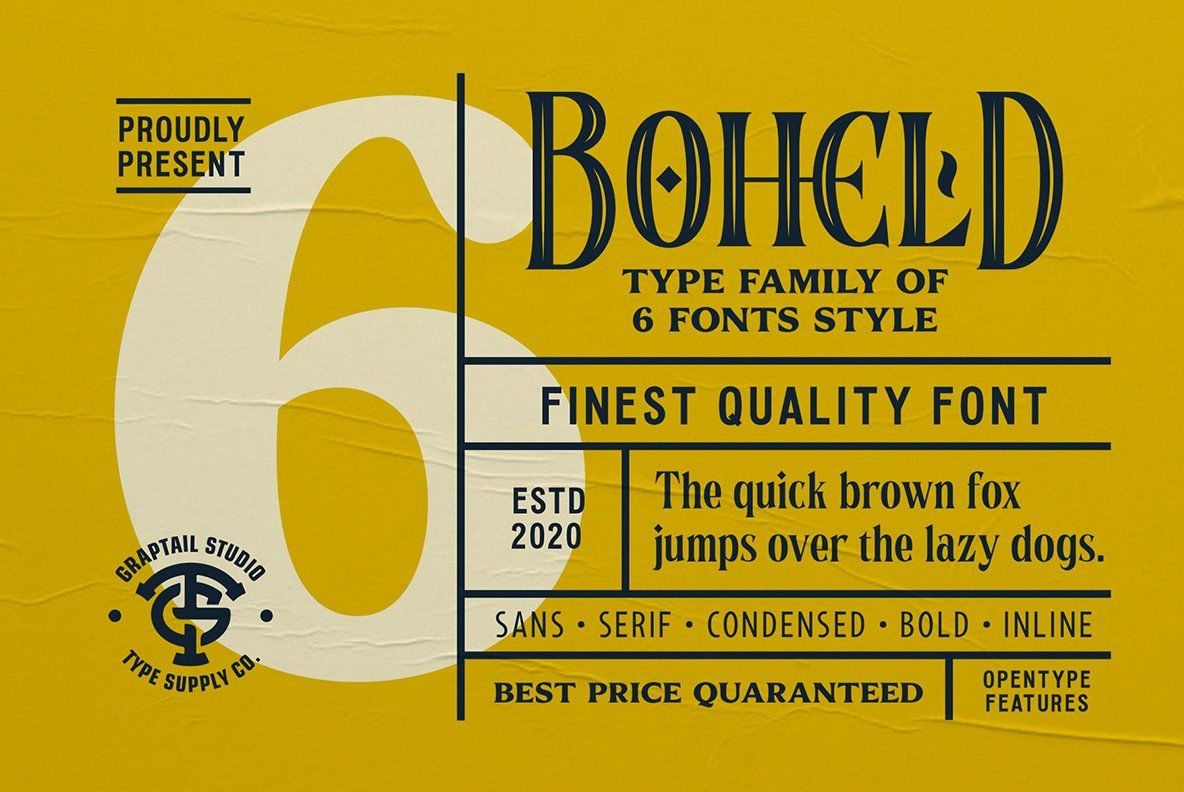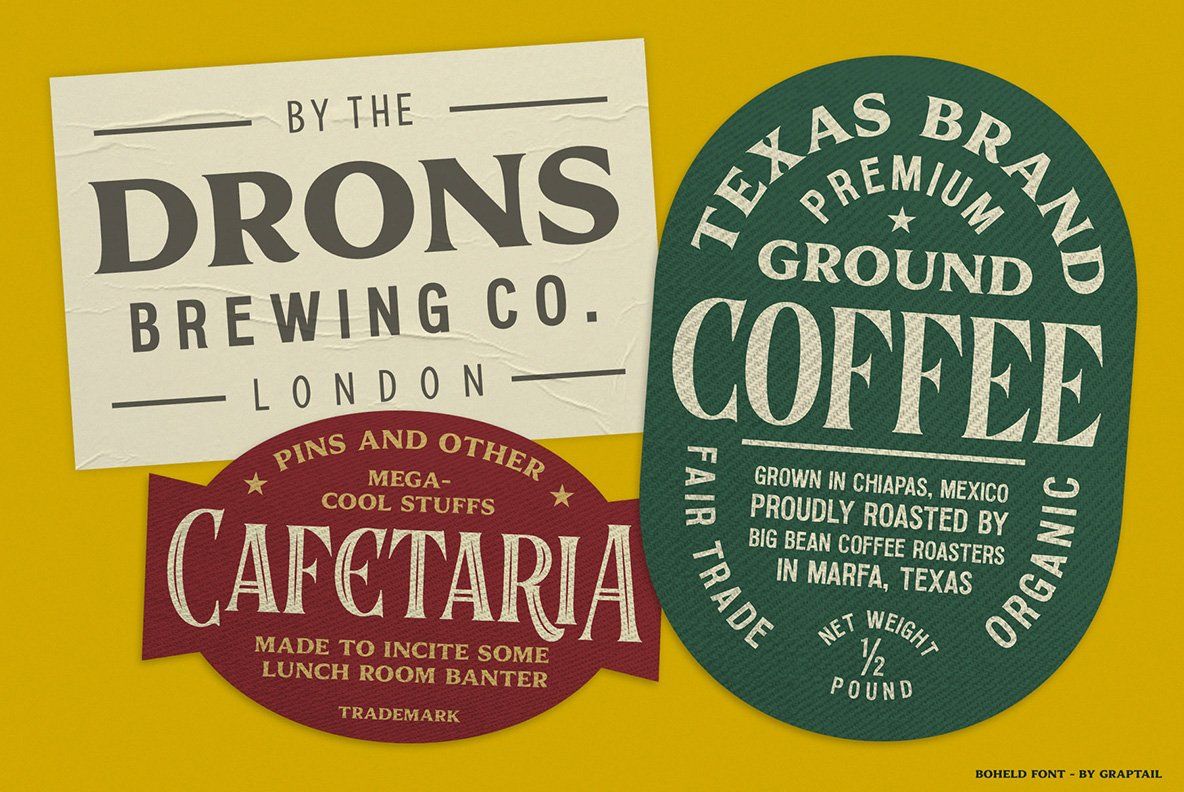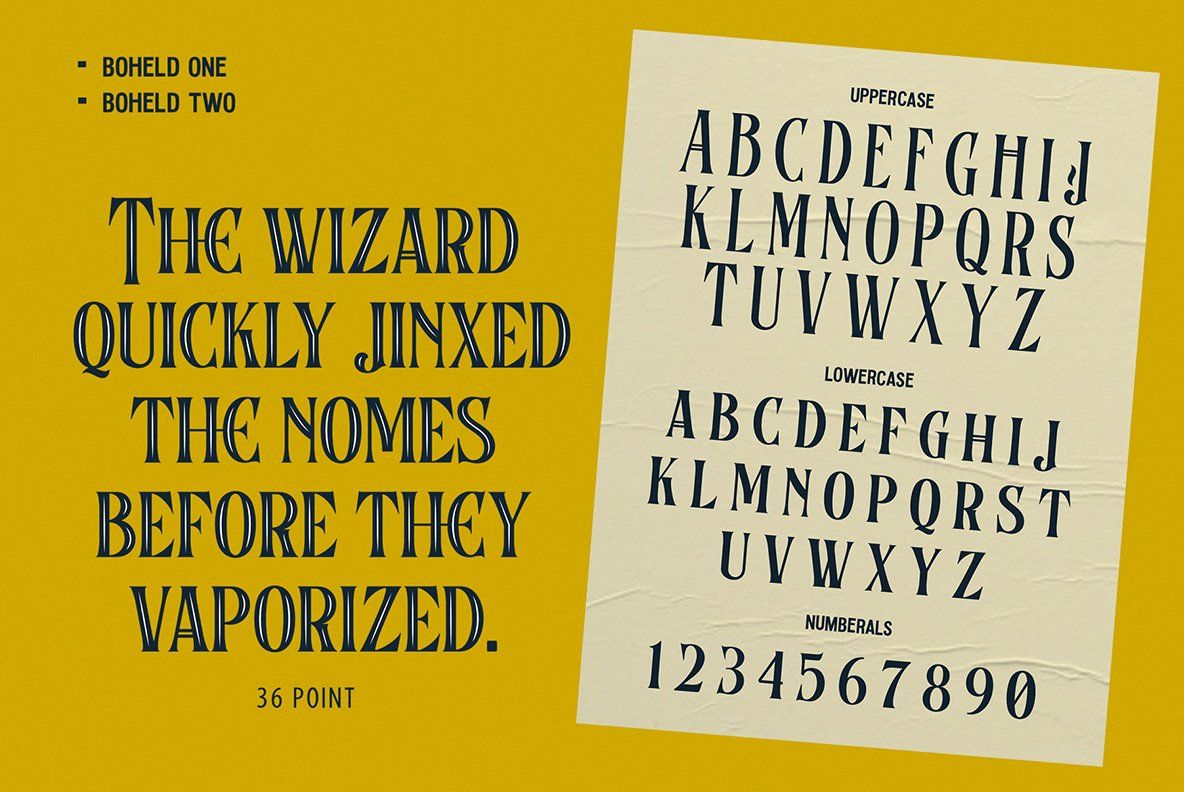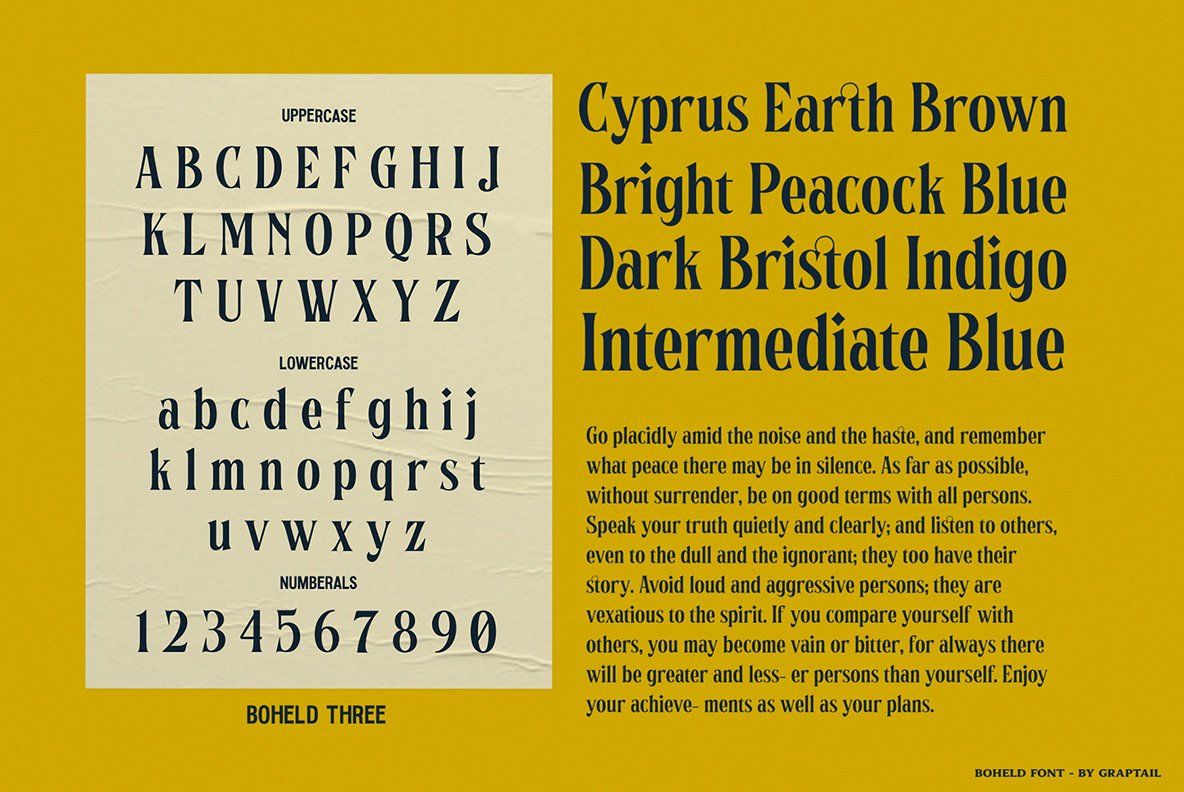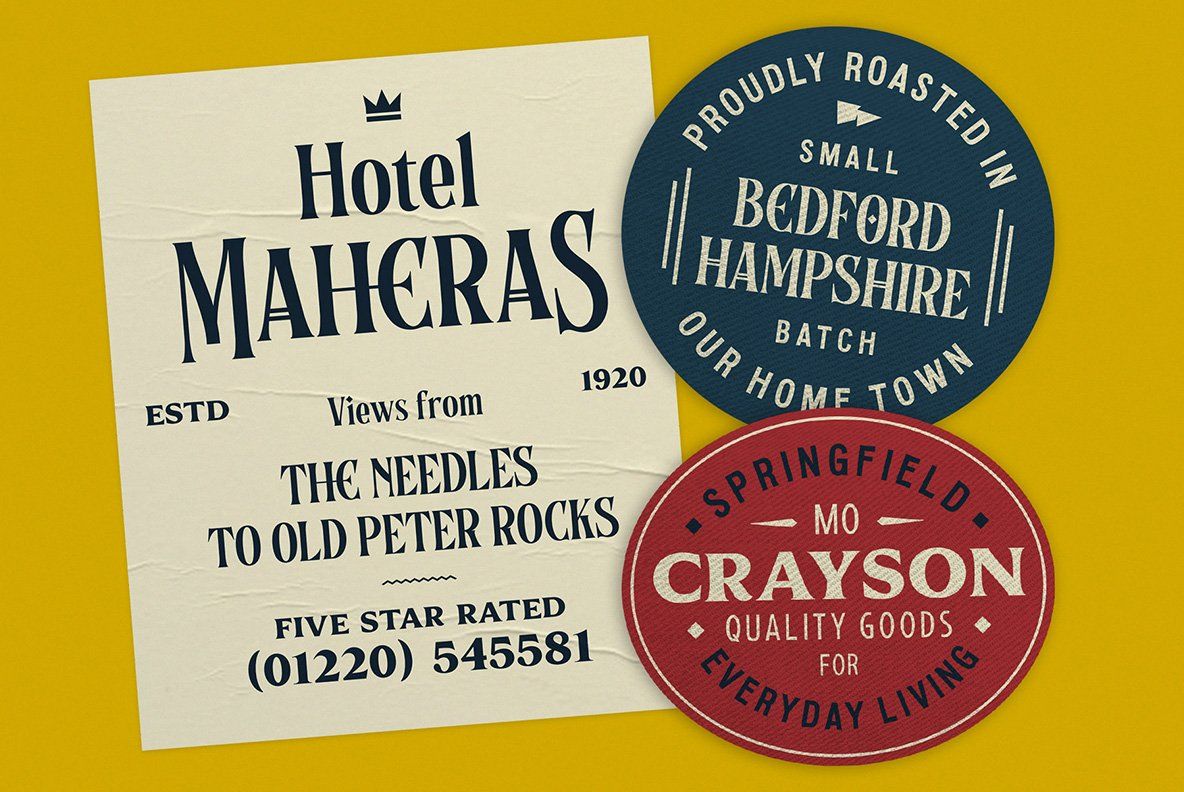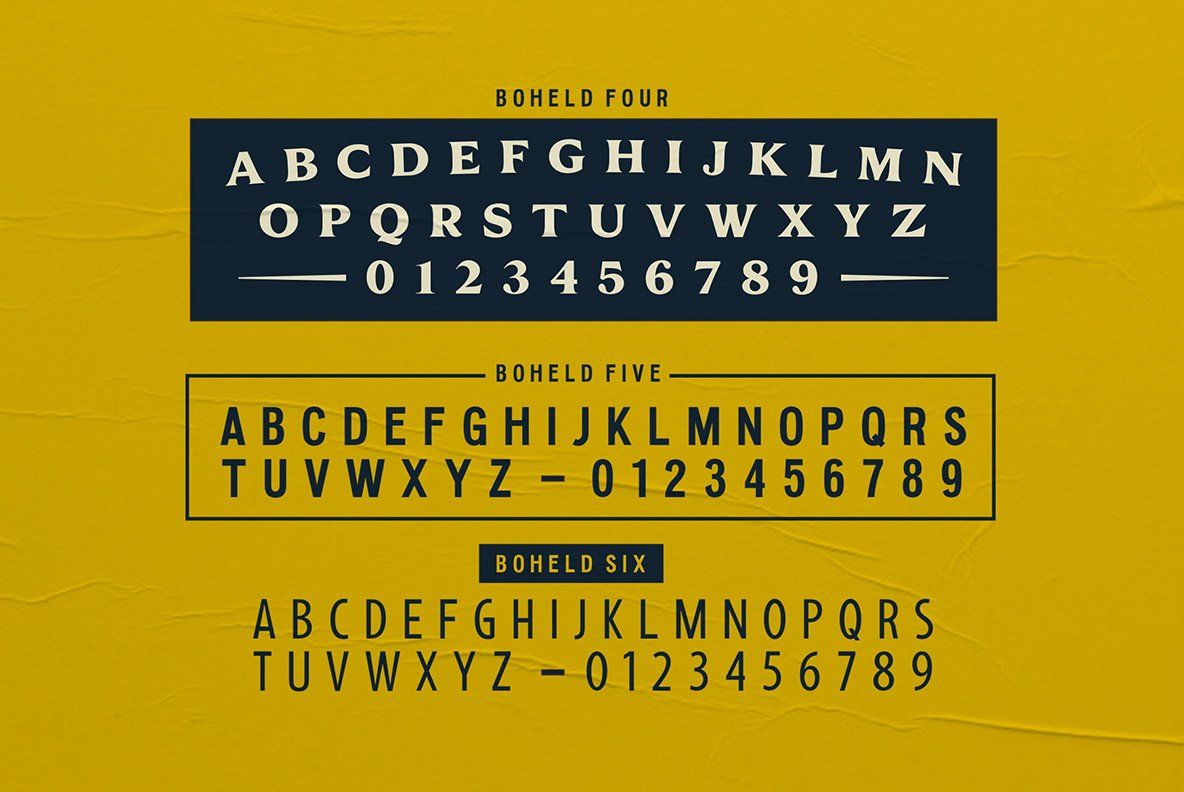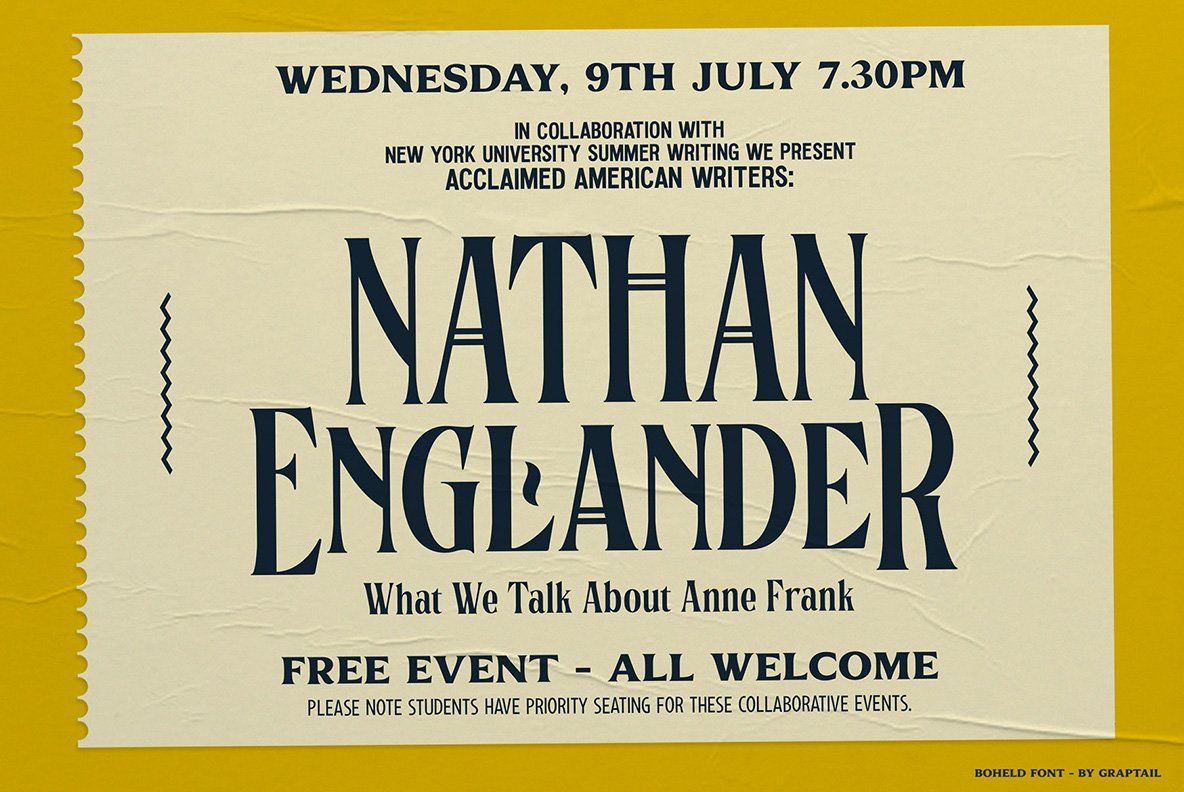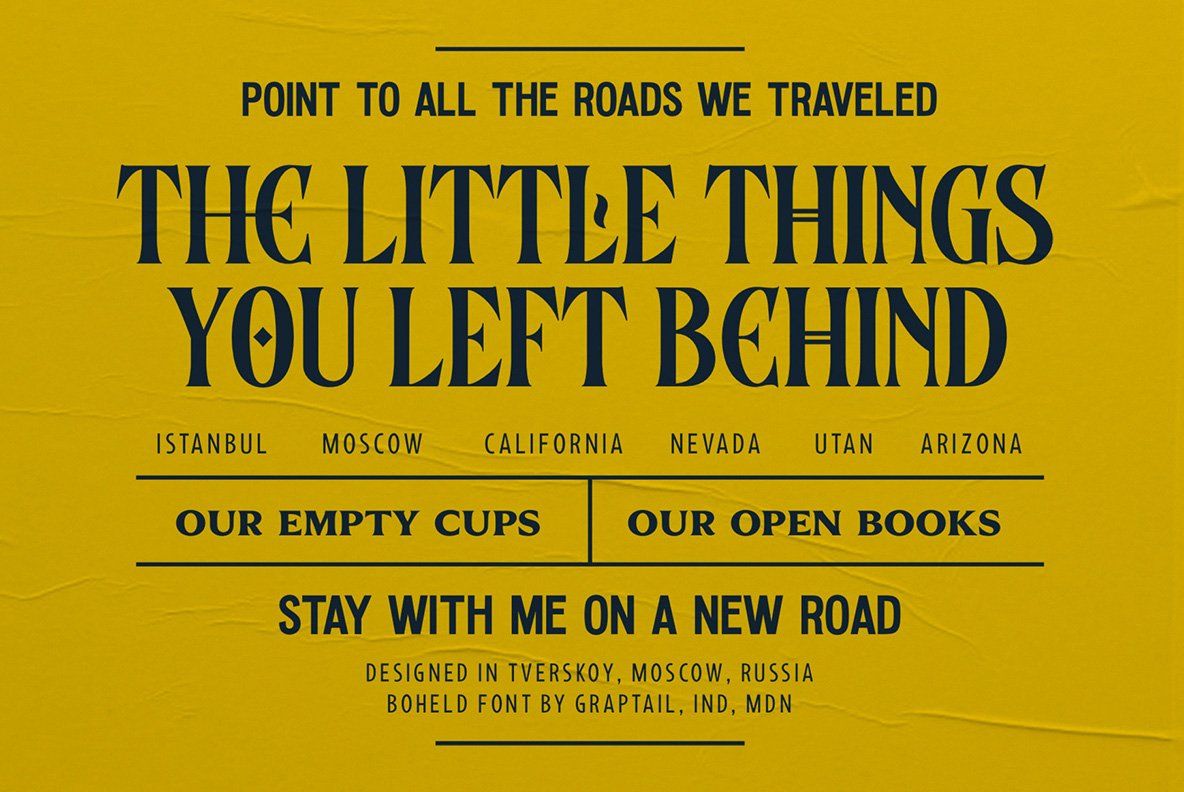
Boheld Fonts Collection comes with 6 different form variations such as Sans, Serif, Bold, Condensed, and Inline. Inspired by classic labels, tickets, posters, etc. So much inspiration as you access it. All benefits you will feel when you start to create works with the Boheld fonts Collection. What are you waiting for, the best price and best quality we give you with pride.